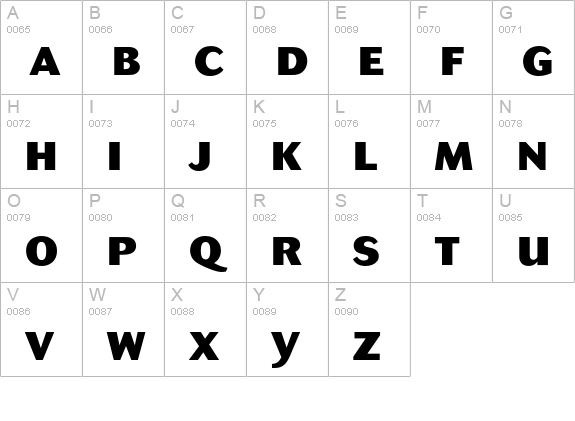
Cosmos R Font Details
Introducing Cosmos R, a stunning and versatile font that combines modern elegance with timeless sophistication. This font exudes a sense of luxury and refinement, making it perfect for a wide range of design projects. With its sleek lines and stylish curves, Cosmos R adds a touch of class to any text or branding. What makes Cosmos R even more appealing is that it is available for free download at FontsMarket.com. This means you can elevate your designs without breaking the bank, making it an ideal choice for budget-conscious creatives. Whether you're creating a logo, website, or print materials, Cosmos R will help you achieve a polished and professional look. Don't miss out on the opportunity to enhance your projects with this exquisite font. Download Cosmos R for free today and see the difference it can make in your designs.